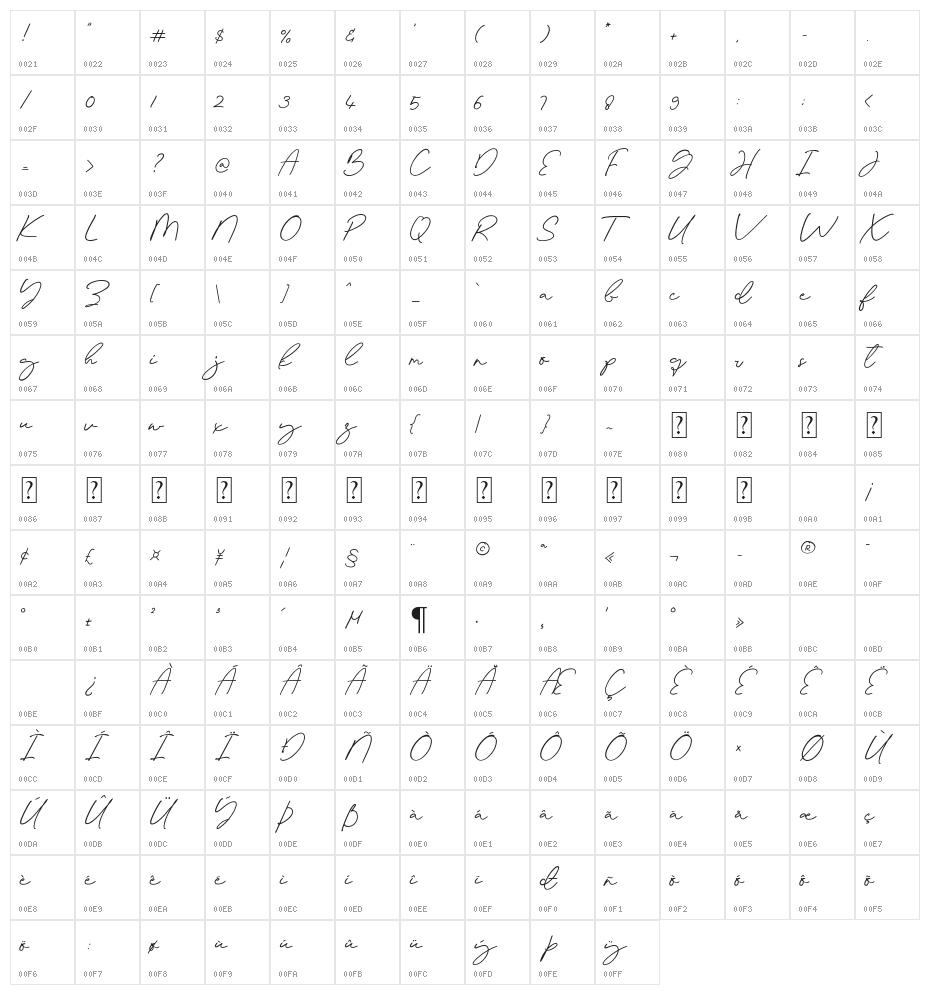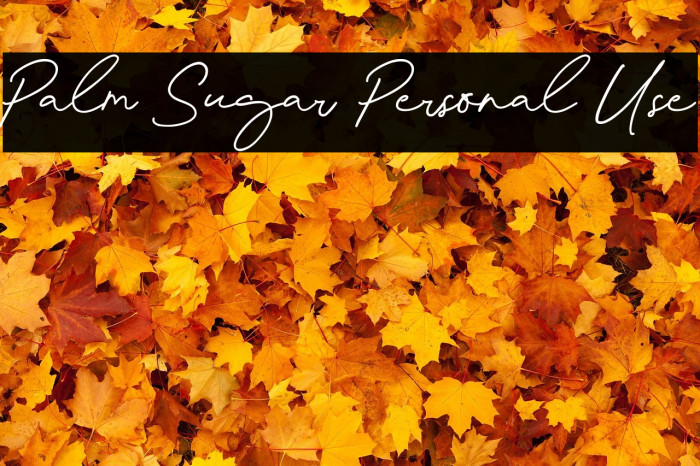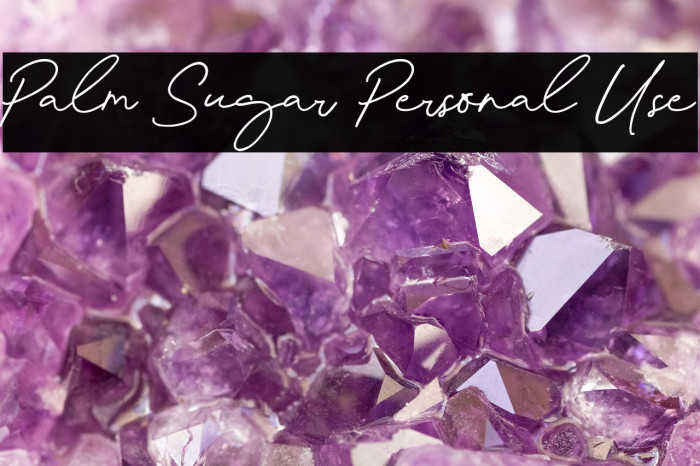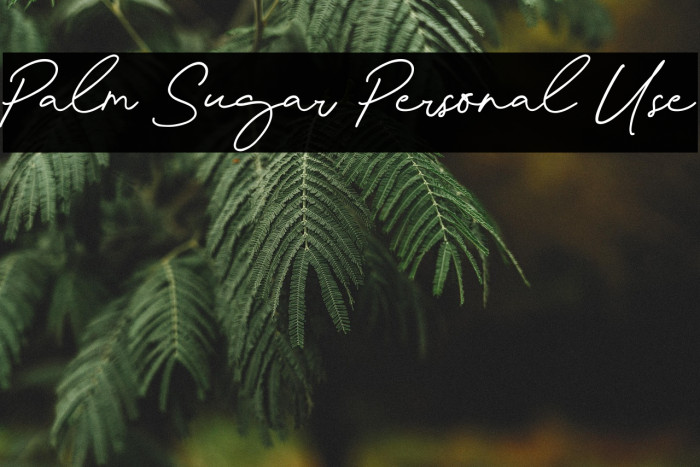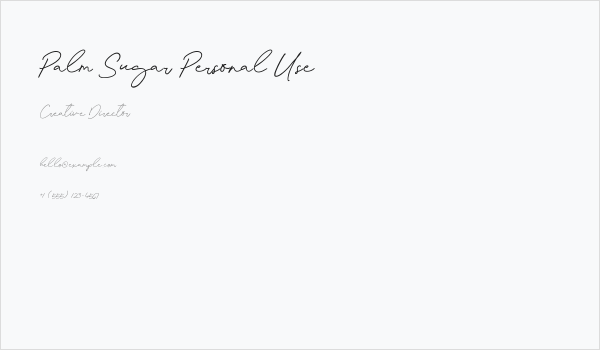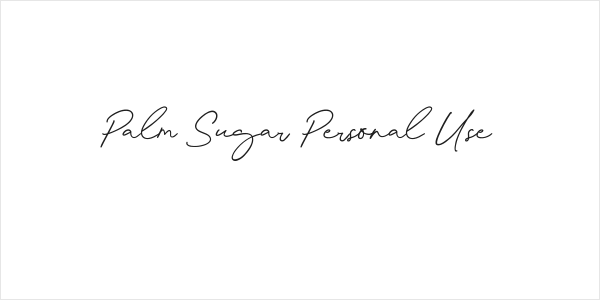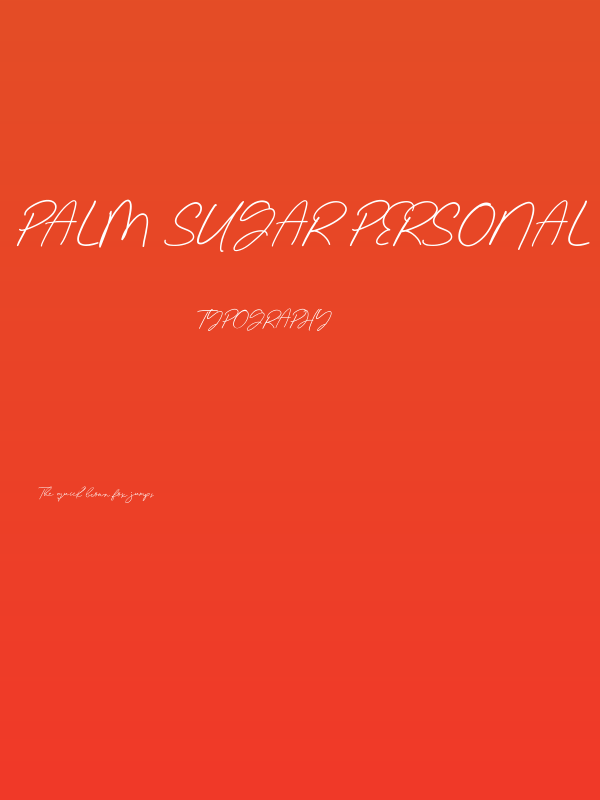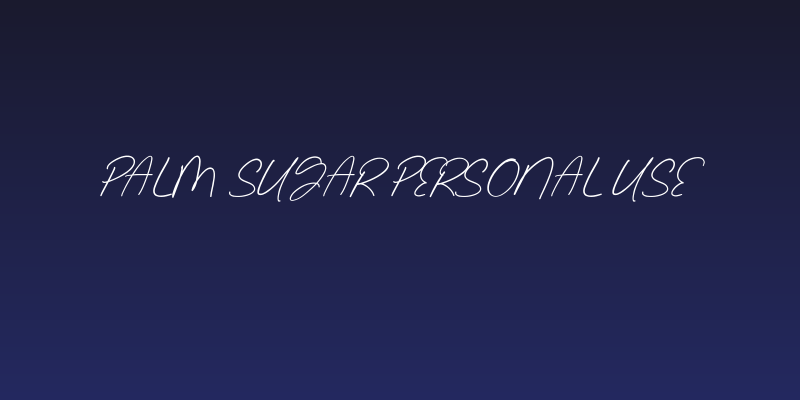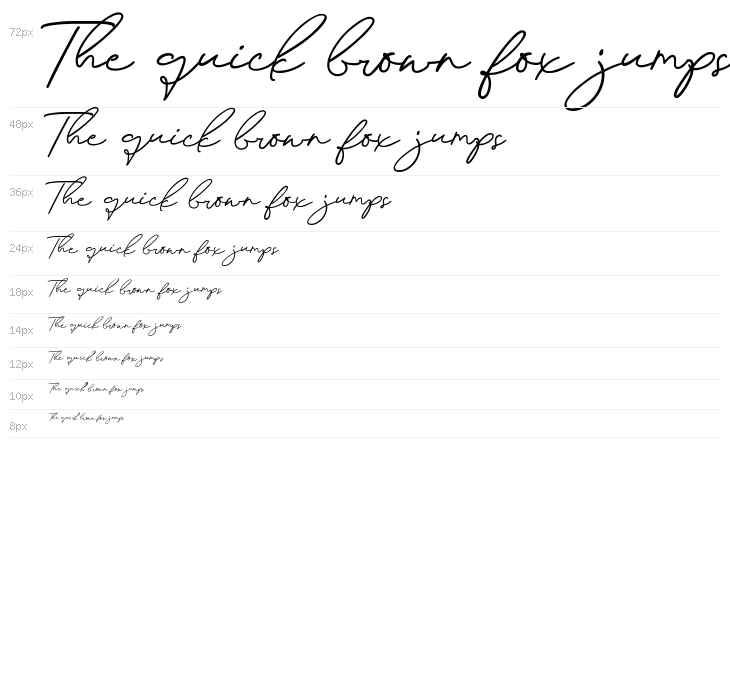
Palm Sugar Personal Use Font
Palm Sugar Personal Use Description
This font features a flowing, cursive style that mimics elegant handwriting. The characters are connected, creating a seamless and fluid appearance. The uppercase letters are slightly larger and more pronounced, while the lowercase letters maintain a consistent flow. The numerals and special characters are designed to match the script's overall aesthetic, providing a cohesive look. The strokes vary in thickness, adding a dynamic and lively feel to the text. This font is ideal for projects that require a personal touch, such as invitations, greeting cards, or branding materials.
Overall StyleElegant, Handwritten
Use CaseLogos, Invitations, Decorative text
Proposed ProjectsPerfect for wedding invitations, personal branding, greeting cards, and decorative signage.